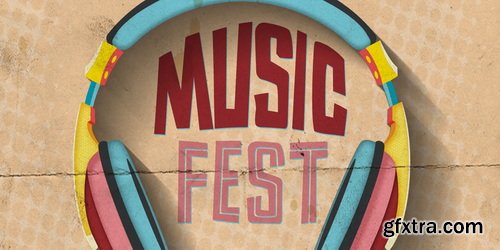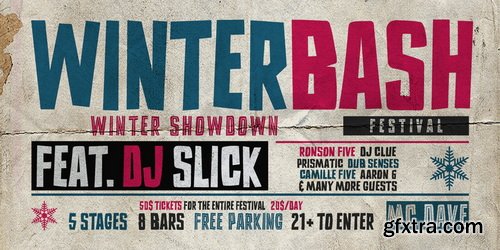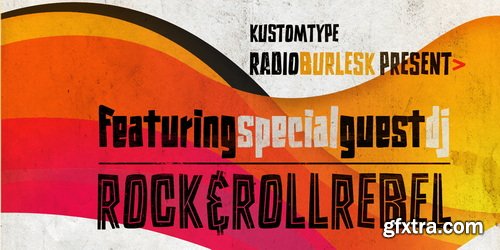
Burlesk is a modern font family that originated from a Bollywood Hindi movie poster from the 1950's. Using 9 letters, a complete alphabet was made comprising of 360 characters. Everything is hand drawn and digitized afterwards. The Burlesk font family meets all the modern requirements that apply in the graphics sector. Don't take it too seriously with the designs and go for something else. You will probably enjoy it as much as those who see it. The Burlesk Font family is available in 2 styles - making it very popular as a great design on posters, flyers, magazines, packaging and all your other imaginative designs! You want the best deal for the best price? Grab the whole package!